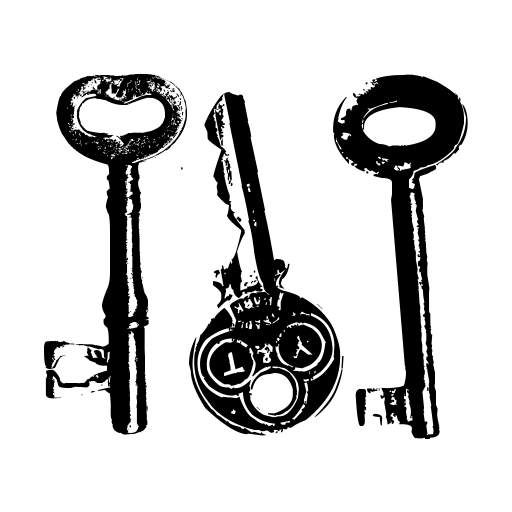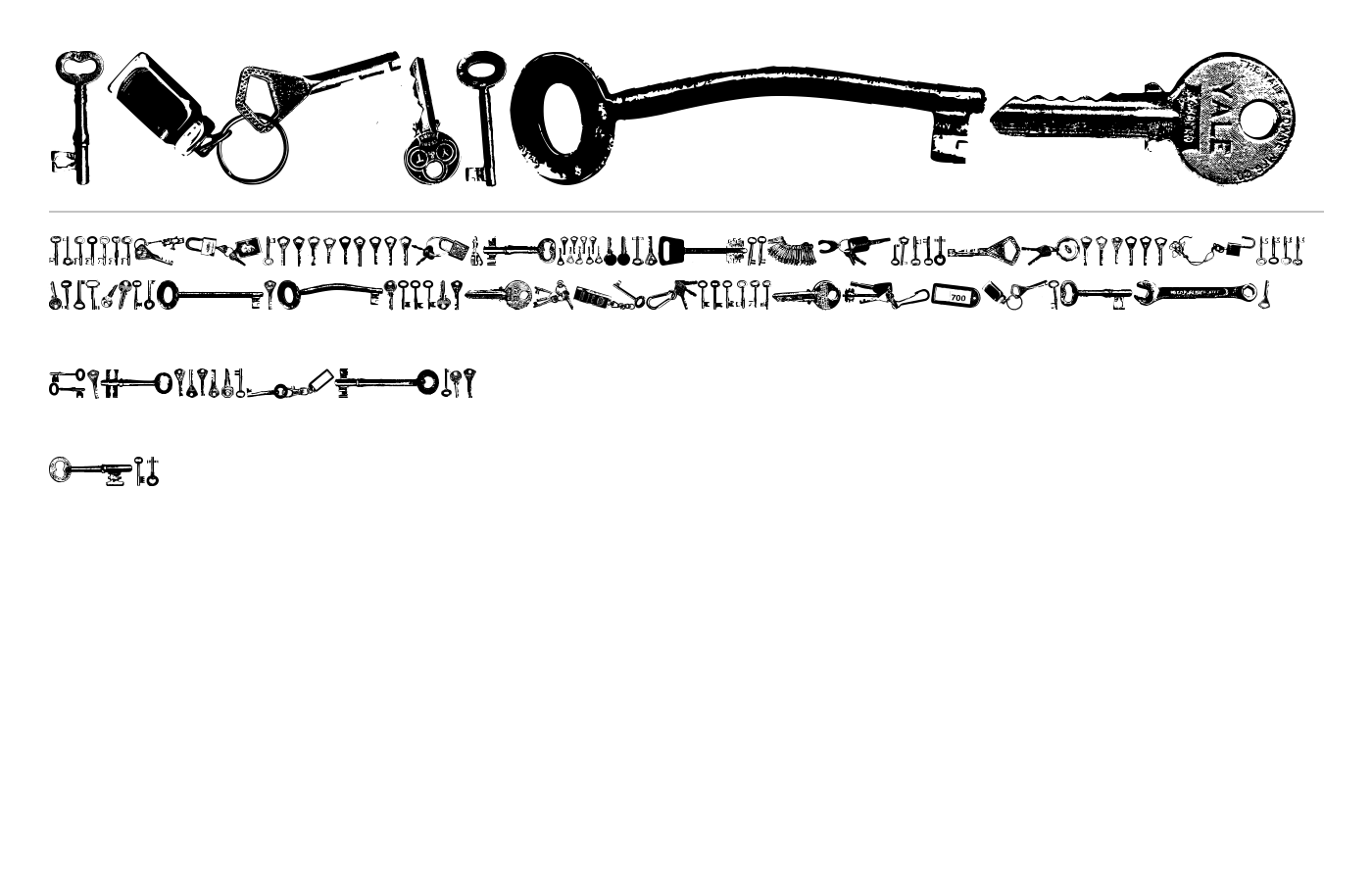
Avain Font is a unique and decorative typeface composed entirely of detailed vintage key illustrations, creating a whimsical and nostalgic feel. This font works well for creative projects needing a distinctive, antique look, such as themed invitations, branding for locksmiths, or artistic posters where visual storytelling is key. Its intricate and ornamental style makes it ideal for eye-catching headlines or logos but less suited for body text due to its detailed complexity.
Avain Font
About Avain Font